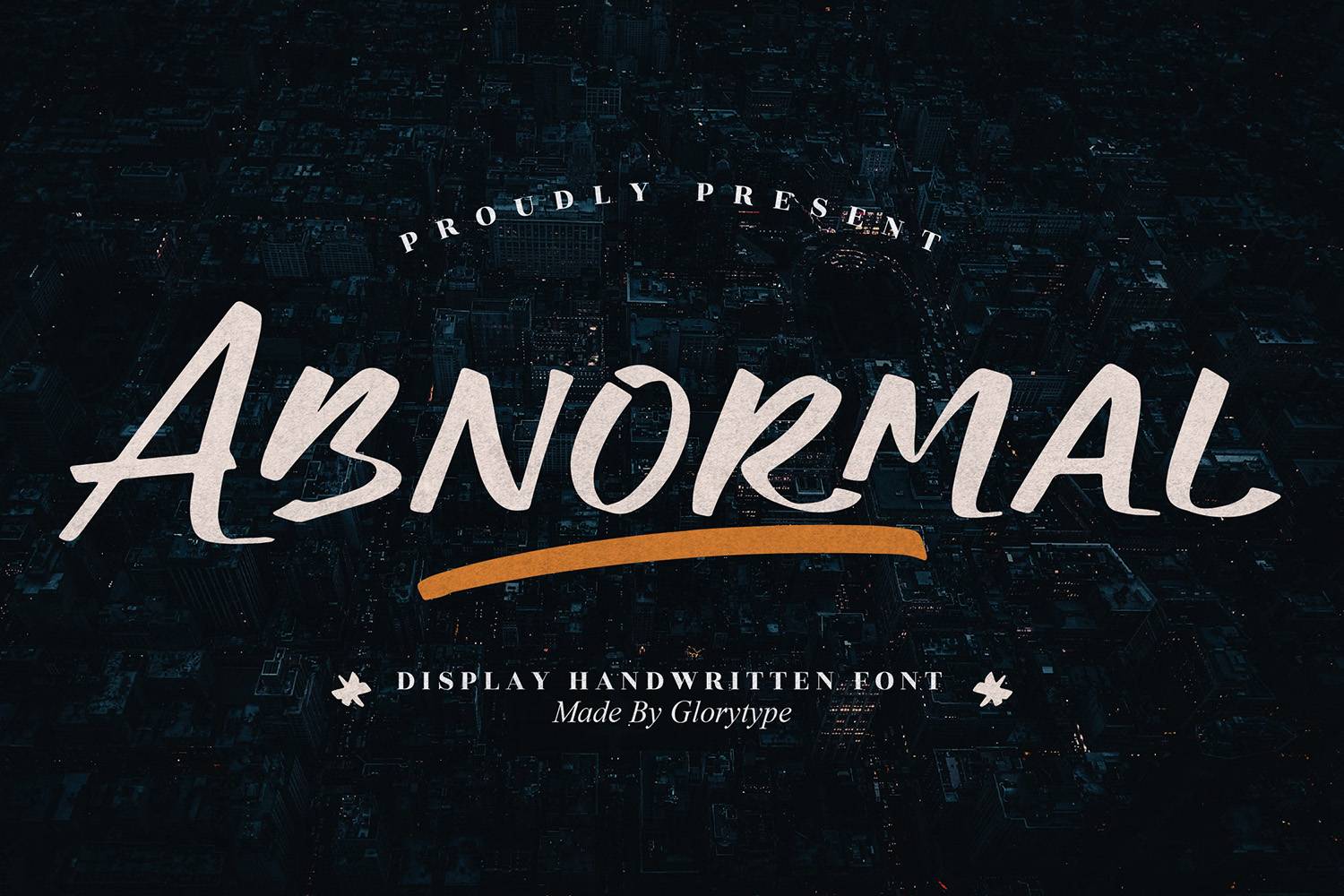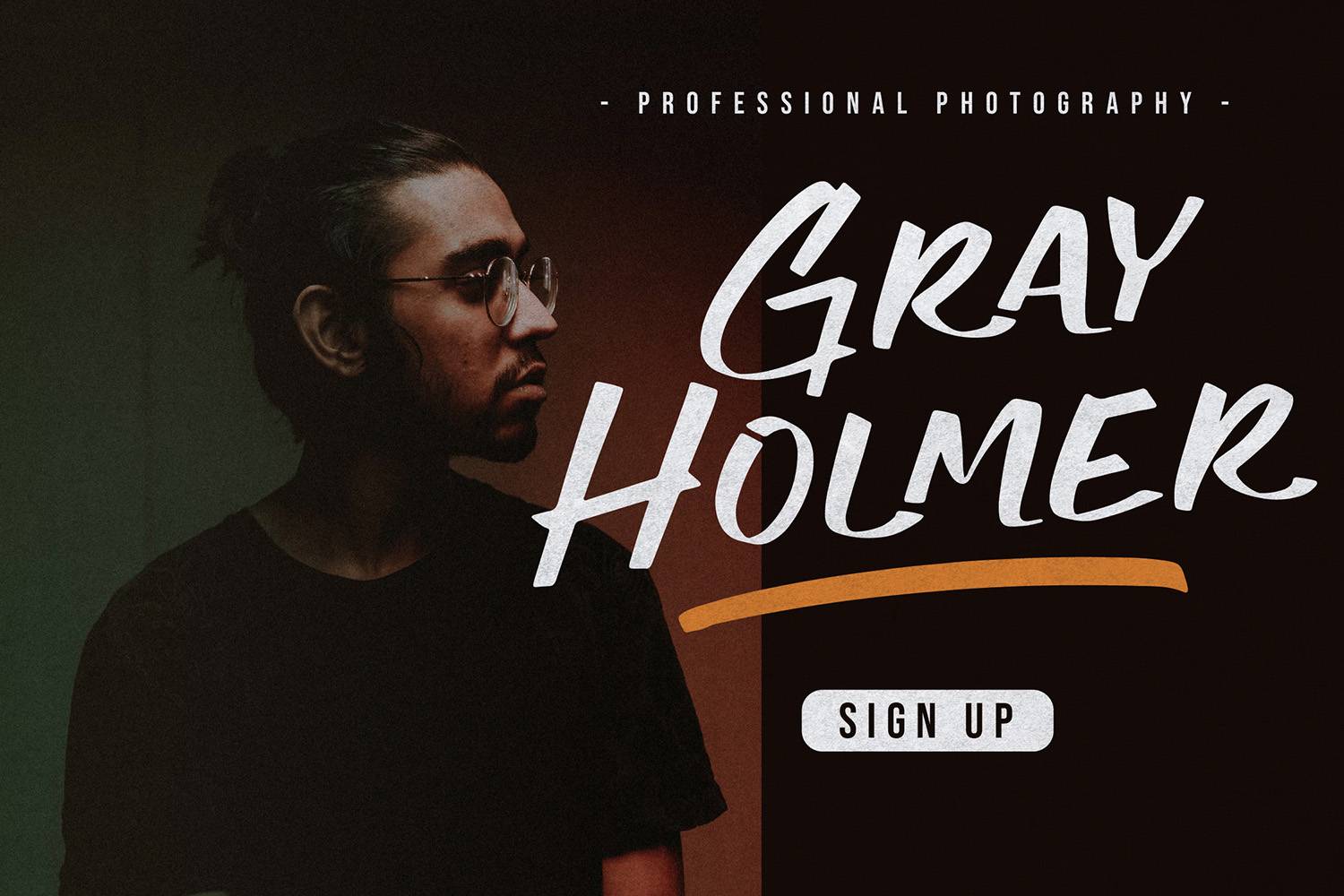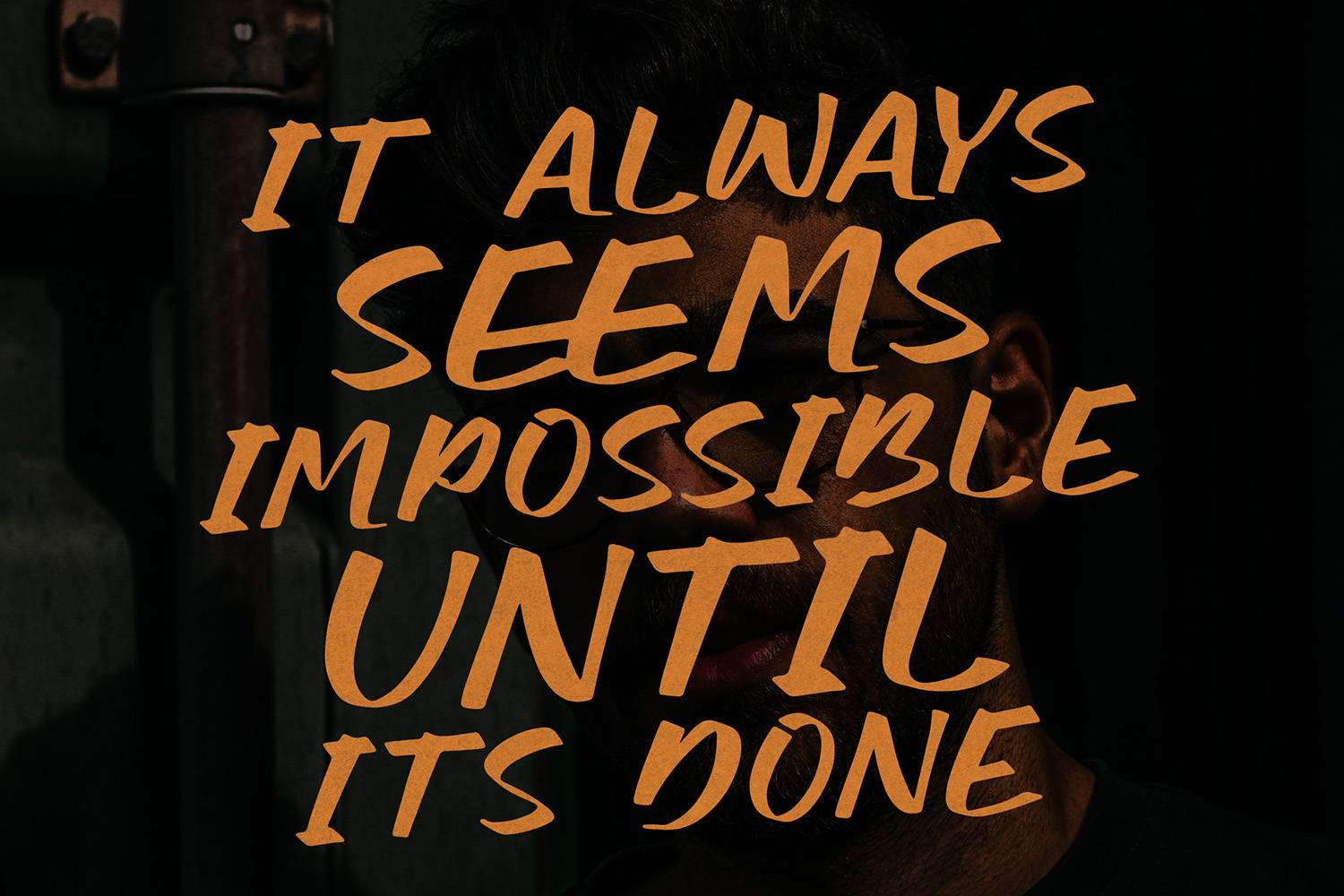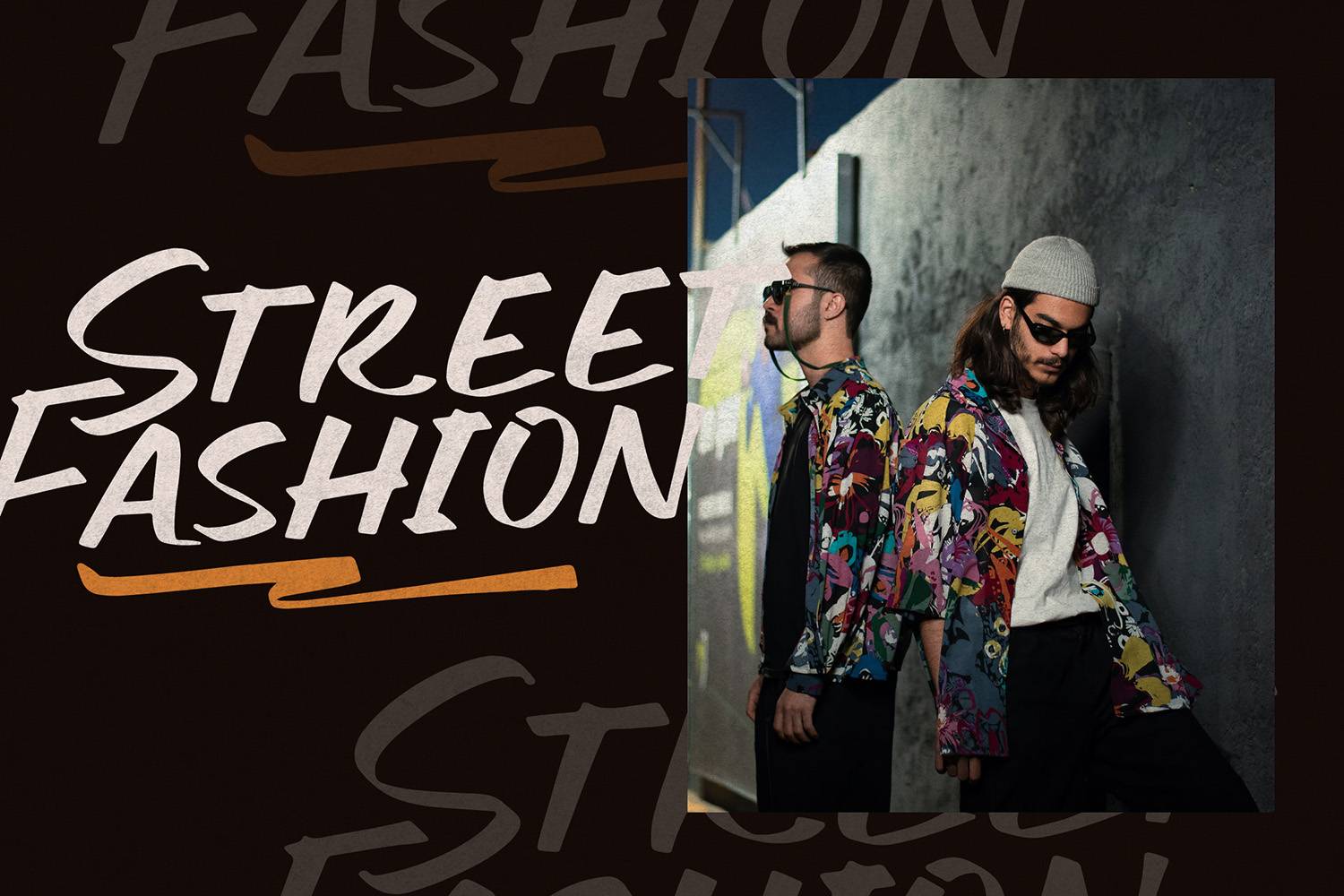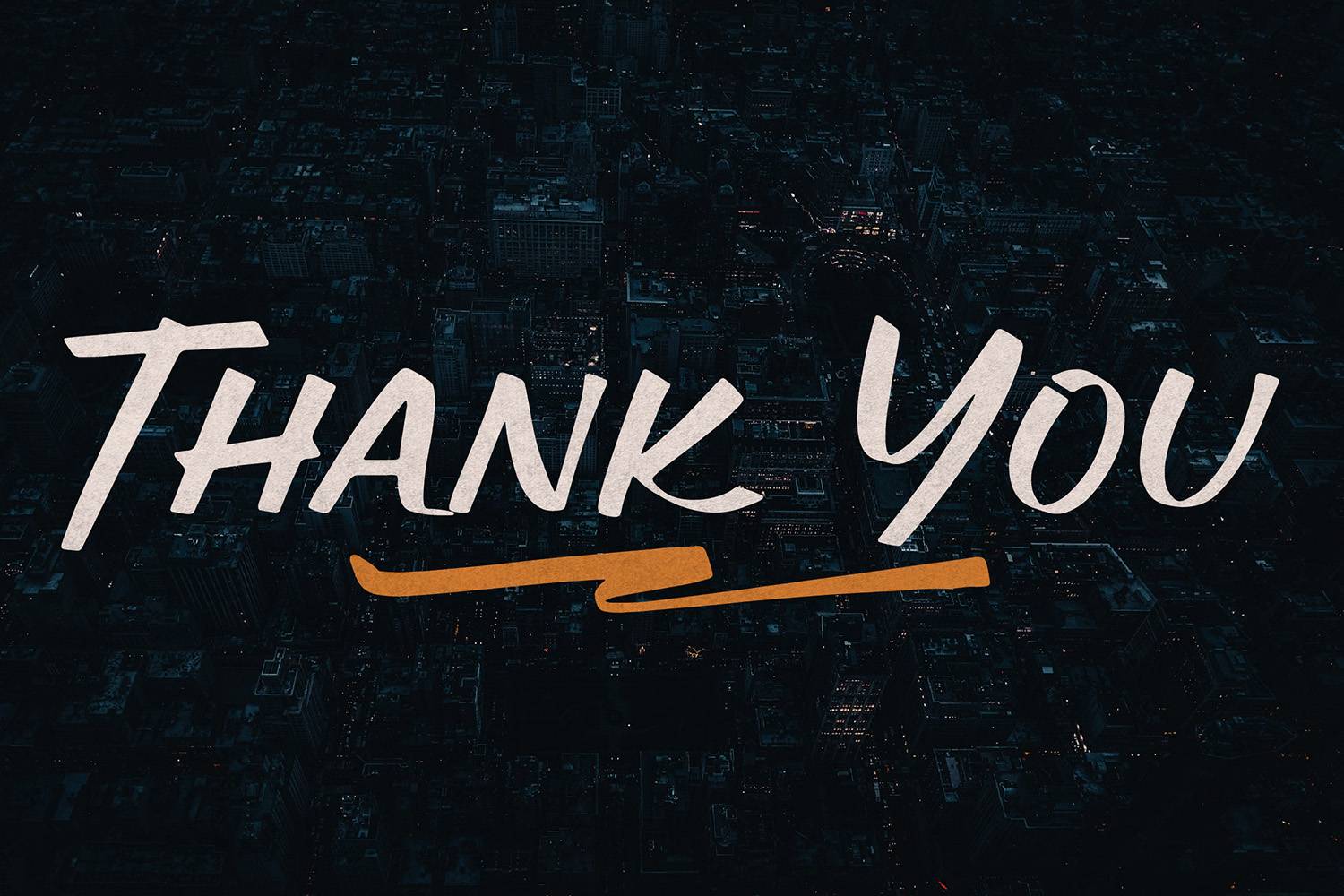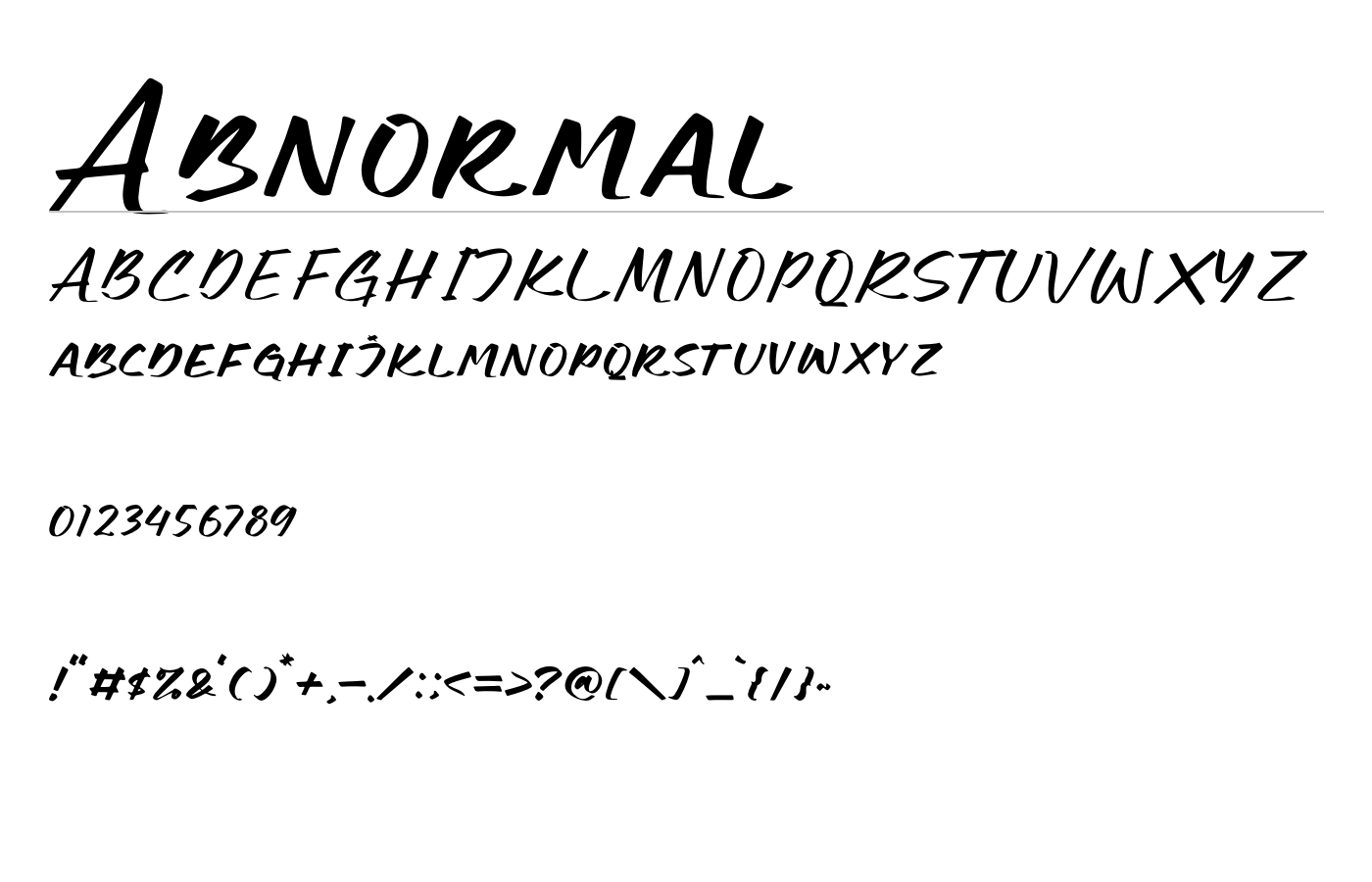
Abnormal Font is a lively sans serif brush script with a casual, hand-drawn feel and dynamic, slightly irregular stroke shapes that add personality and energy. Its medium weight and moderate contrast, along with an informal italic angle, make it perfect for playful, creative designs like branding, posters, and social media graphics where a distinct, approachable style is desired. This font’s unique letterforms and expressive flow ensure it stands out in headlines and logos but is less suited for long body text.
Abnormal Font
About Abnormal Font